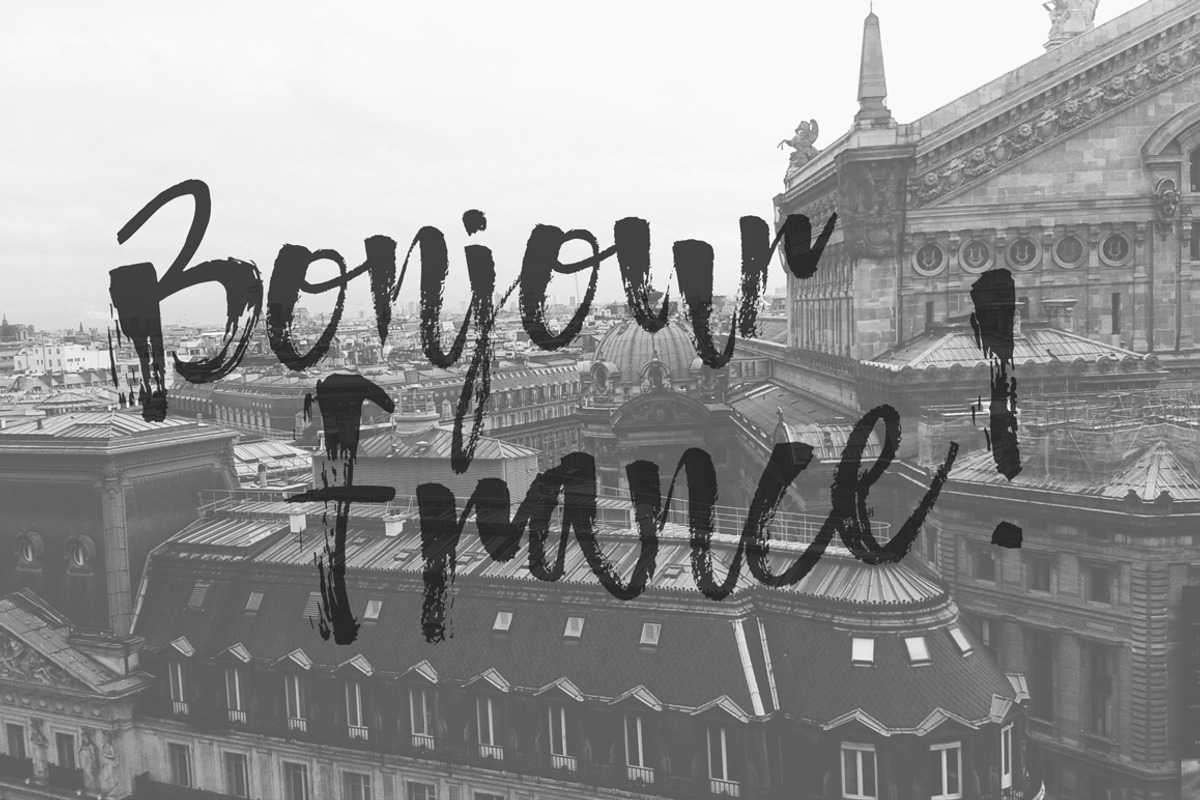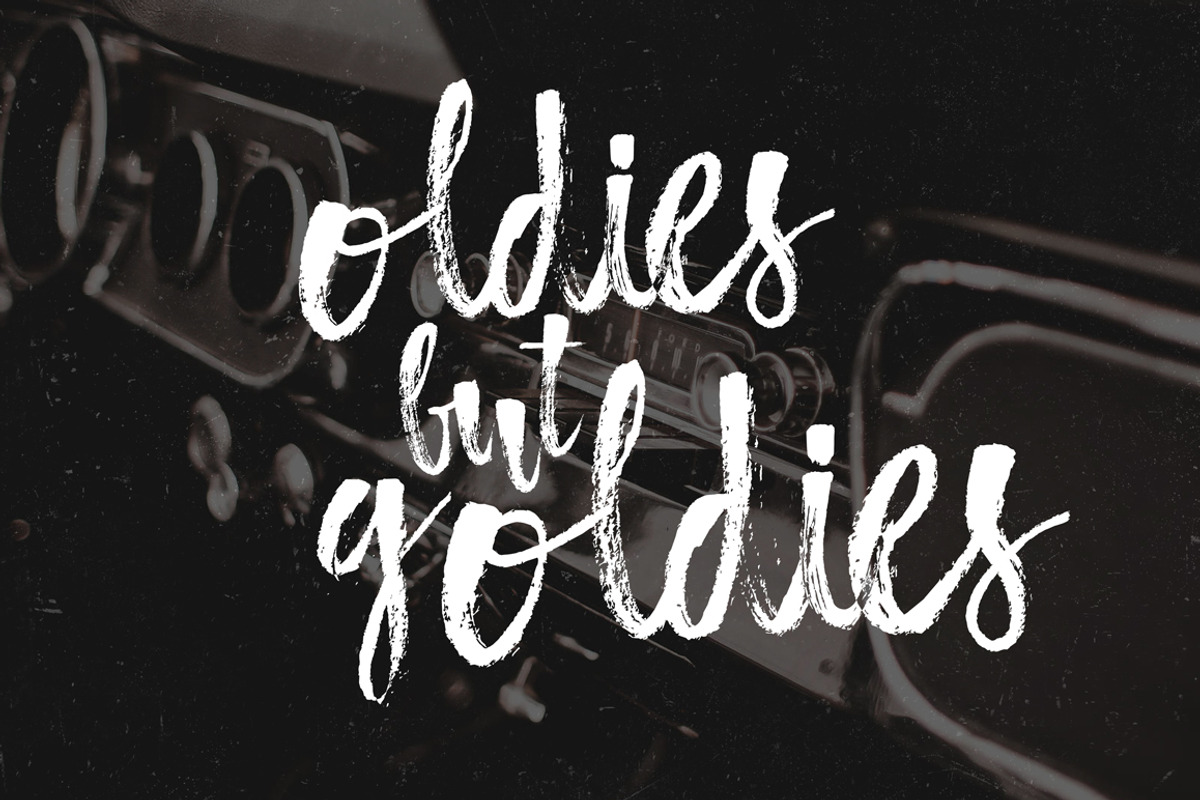
Atmosphere Script+ Watercolor PNG
Forget everything you have seen so far. this new concept. smooth, powerful, natural, original, artistic, loving, coffee-scented, dreamer, inspiration, could become the basis of works like a masterpiece. We help your new design with Atmosphere Script Typeface and Extras . You can think of all kinds to help you with your issue and design quality and natural at the same time our business to provide the original work.
Fluent and a font that can be connected with aesthetic design. With an impressive view of natural brush marks..
Atmosphere Extras
Creativity comes our way against the colorful and wonderful 20-watercolor textures! All are high resolution and quality for your designs.